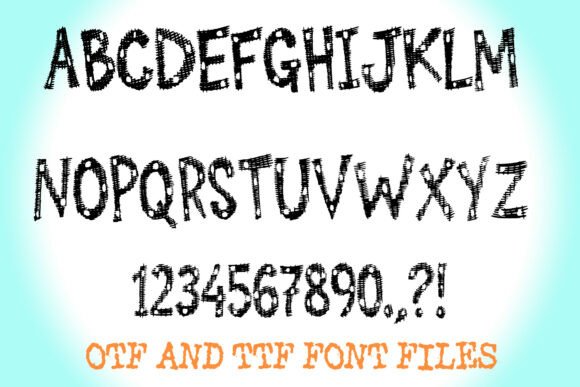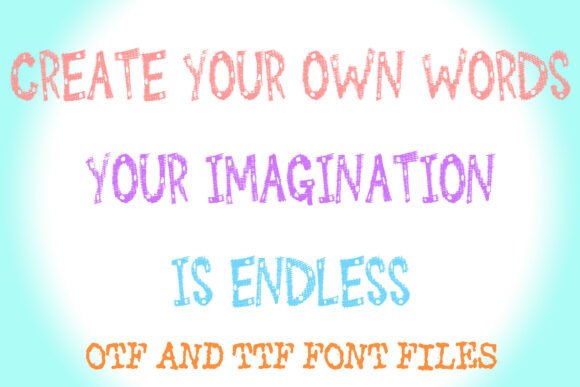
Introducing Embroidery Thread Worn Font: The Ultimate Crafty Typeface
Are you looking for a unique and creative way to add a handmade touch to your designs? Look no further than Embroidery Thread Worn Font, a distressed display typeface that mimics the look of hand-stitched embroidery with a worn, thread-worn texture. This innovative font is perfect for crafters, designers, and DIY enthusiasts who want to add a personal touch to their projects.
The Inspiration Behind Embroidery Thread Worn Font
Embroidery Thread Worn Font is inspired by the art of hand-stitched embroidery, where threads are carefully woven together to create intricate designs and patterns. The font’s creator aimed to capture the essence of this traditional craft and translate it into a digital format that can be used by designers and crafters alike. The result is a font that exudes a sense of handmade charm and uniqueness.
Key Features of Embroidery Thread Worn Font
- Distressed Texture: The font features a worn, thread-worn texture that gives it a realistic, hand-stitched look.
- Sublimation and Digital Design: Embroidery Thread Worn Font is also suitable for sublimation and digital design projects, offering endless possibilities for creative expression.
Use Cases for Embroidery Thread Worn Font
Embroidery Thread Worn Font is a versatile typeface that can be used in a variety of creative projects, including:
- Sewing Projects: Add a personal touch to your sewing projects with custom labels, quotes, and designs.
- Embroidery-Themed Crafts: Create embroidery-themed crafts, such as stitched quotes, logos, and patterns.
- T-Shirt Designs: Design unique t-shirts with custom embroidery-style text and logos.
- Fabric-Inspired Logos: Create fabric-inspired logos and branding materials with a handmade touch.
- DIY Projects: Add a personal touch to your DIY projects, such as home decor, scrapbooking, and invitations.
Benefits of Using Embroidery Thread Worn Font
Embroidery Thread Worn Font offers several benefits to designers and crafters, including:
- Unique and Handmade Look: The font’s distressed texture and stitched effect give it a unique, handmade look that sets it apart from other typefaces.
- Endless Creative Possibilities: The font’s versatility and range of applications make it perfect for a wide range of creative projects.
Tips and Tricks for Using Embroidery Thread Worn Font
To get the most out of Embroidery Thread Worn Font, here are some tips and tricks to keep in mind:
- Experiment with Different Colors: Try out different colors and textures to add depth and interest to your designs.
- Combine with Other Fonts: Combine Embroidery Thread Worn Font with other fonts to create unique and eye-catching designs.
- Use for Quotes and Sayings: Use the font to create custom quotes and sayings for your designs, adding a personal touch to your projects.
Embroidery Thread Worn Font is a unique and creative typeface that adds a handmade touch to any design project. With its distressed texture, stitched effect, and compatibility with a range of design software and cutting machines, this font is perfect for crafters, designers, and DIY enthusiasts. Whether you’re working on sewing projects, embroidery-themed crafts, or digital design projects, Embroidery Thread Worn Font is the perfect choice for adding a personal touch to your work.